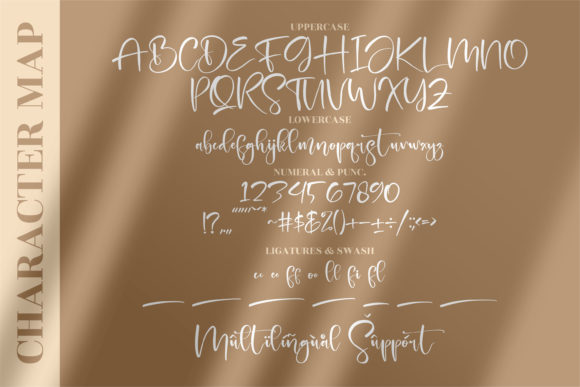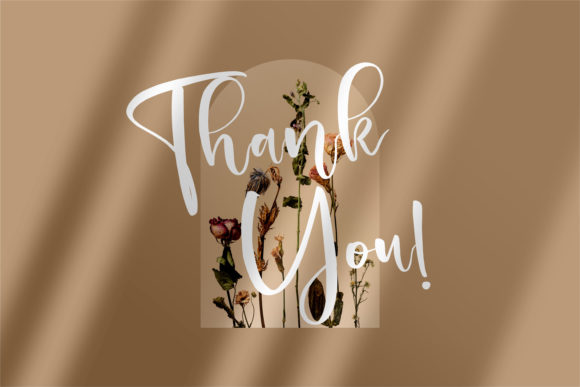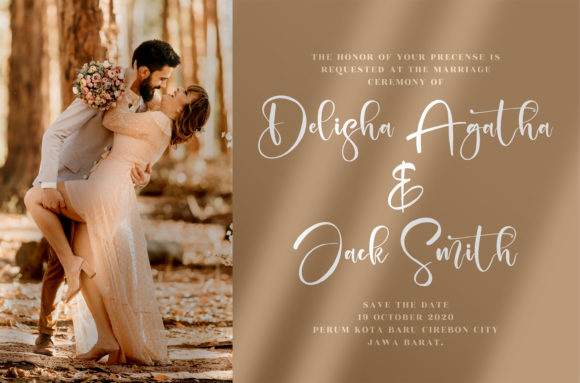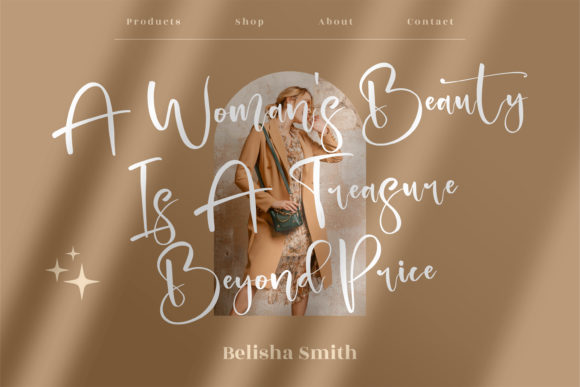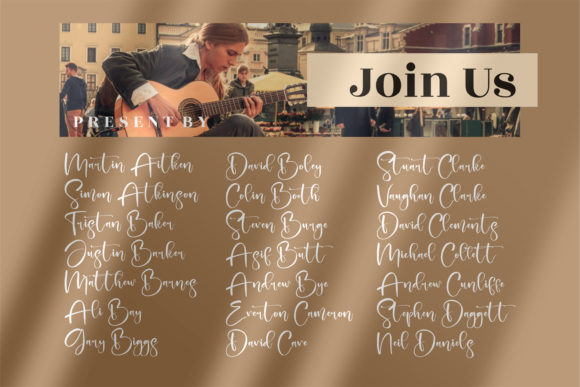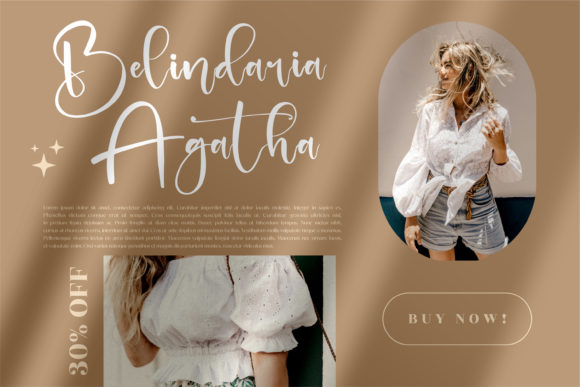
Joyfield Darling Font
About Joyfield Darling Font
Joyfield Darling is a lovely and delicate script font that exudes elegance and class. This font was particularly crafted for those who need a beautiful and refreshing look to their designs.